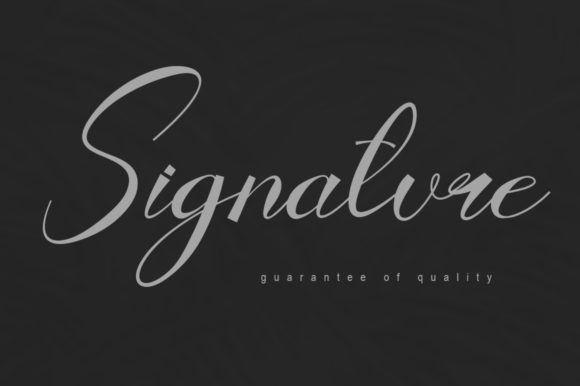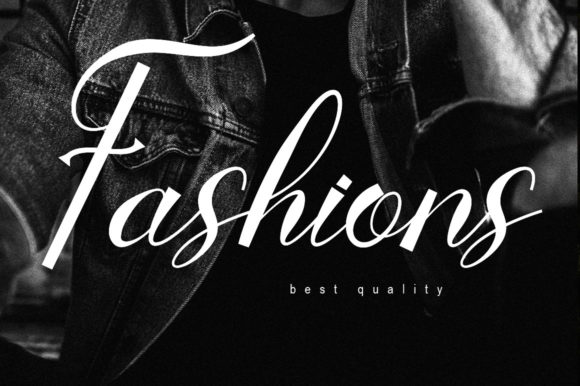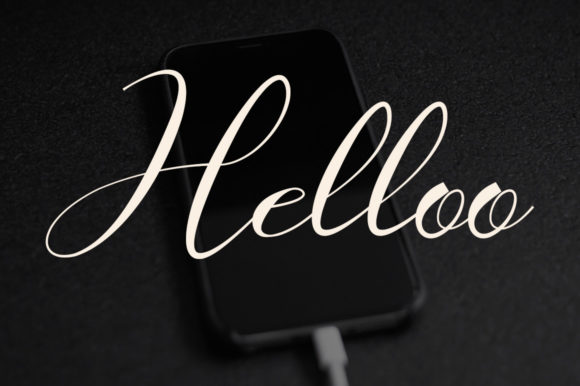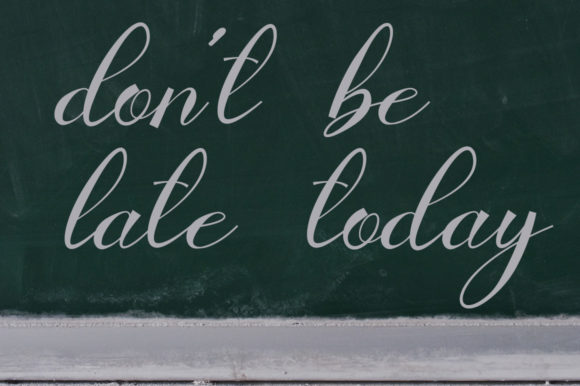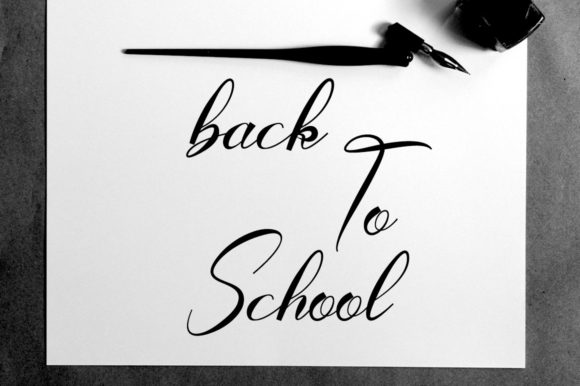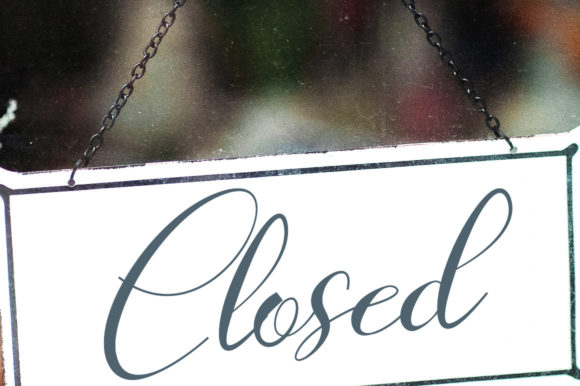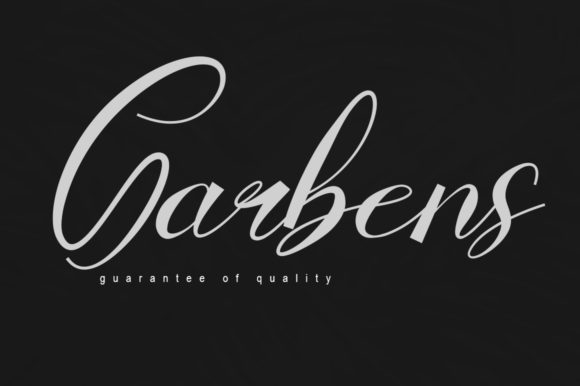
Garbens Font: Elevate Your Designs with a Luxurious and Natural-Looking Script Font
Are you tired of using the same old fonts for your creative projects? Look no further than Garbens Font, a stunning script font that exudes luxury and sophistication. With its natural-looking curves and stylish vibe, Garbens is the perfect addition to any designer’s toolkit. In this article, we’ll dive into the world of Garbens Font and explore its features, benefits, and uses.
What is Garbens Font?
Garbens Font is a beautiful script font that boasts a unique blend of elegance and authenticity. Its luxurious feel makes it ideal for high-end designs, while its natural look ensures that it will complement a wide range of creative projects. Whether you’re working on a branding campaign, a wedding invitation, or a craft project, Garbens Font is sure to make a statement.
Key Features of Garbens Font
- Luxurious and sophisticated design: Garbens Font features a stylish and refined design that is perfect for high-end projects.
- Natural-looking curves: The font’s natural-looking curves give it an authentic feel that will add a personal touch to any project.
- Perfect for creative projects: Garbens Font is designed to inspire creativity and is suitable for a wide range of projects, from branding and advertising to crafting and DIY.
- Easily readable: Despite its ornate design, Garbens Font is surprisingly easy to read, making it perfect for use in body text as well as headlines.
Benefits of Using Garbens Font
So why choose Garbens Font for your next project? Here are just a few benefits of using this stunning script font:
- Adds a personal touch: Garbens Font’s unique design ensures that your project will stand out from the crowd and add a personal touch to your brand or message.
- Enhances creativity: With its inspiring design, Garbens Font is sure to spark your creativity and help you come up with innovative ideas for your project.
- Versatile: Garbens Font can be used for a wide range of projects, from digital designs to print materials, and is suitable for use in a variety of industries.
- High-quality: Garbens Font is a high-quality font that is designed to produce crisp, clear results, even at small sizes.
Who Can Benefit from Garbens Font?
Garbens Font is a versatile font that can be used by a wide range of designers and crafters, including:
- Graphic designers: Garbens Font is perfect for use in branding campaigns, logos, and advertising materials.
- Wedding planners and stationery designers: The font’s elegant design makes it ideal for use in wedding invitations, stationery, and other special occasion materials.
- Crafters and DIY enthusiasts: Garbens Font can add a personal touch to craft projects, such as handmade cards, gift tags, and other paper crafts.
- Digital artists and illustrators: The font’s unique design makes it perfect for use in digital art and illustrations.
How to Use Garbens Font
- Pair it with a sans-serif font: For a classic look, pair Garbens Font with a sans-serif font, such as Arial or Helvetica.
- Use it for headlines and titles: Garbens Font is perfect for use in headlines and titles, where its elegant design can really shine.
- Experiment with different colors: Garbens Font looks great in a variety of colors, from rich jewel tones to soft pastels.